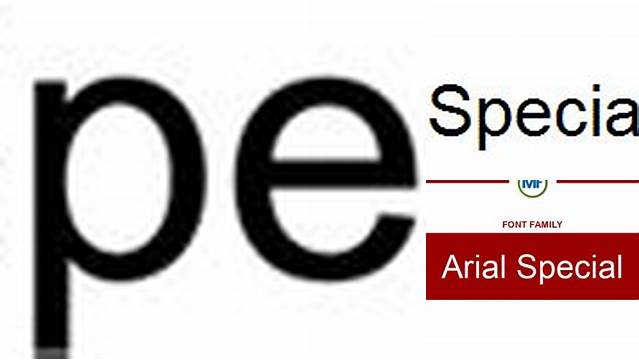
Arial Special G1 Font: Free Download Guide
Hey guys! Ever been on the hunt for that perfect font? Something that just screams professionalism and readability all at once? Well, let me introduce you to the Arial Special G1 font! This font is like that reliable friend who always has your back. It's versatile, clean, and oh-so-easy on the eyes. Whether you're designing a sleek website, crafting a compelling presentation, or just jazzing up your documents, Arial Special G1 might just be your new go-to.
What Makes Arial Special G1 Font Stand Out?
Arial Special G1 isn't just another font in the crowd. What makes Arial Special G1 stand out? It’s the subtle tweaks and enhancements that make it a cut above the rest. Think of it as Arial's cooler, more refined cousin. The letterforms are meticulously designed to ensure clarity and legibility, even at smaller sizes. This makes it perfect for body text, where readability is paramount. Plus, it has a certain elegance that adds a touch of sophistication to any design. It's not just about looking good; it's about communicating effectively. The clean lines and balanced proportions of Arial Special G1 ensure that your message comes across loud and clear, without any unnecessary distractions. Whether you're working on a corporate report, a marketing brochure, or a personal project, this font will help you make a lasting impression.